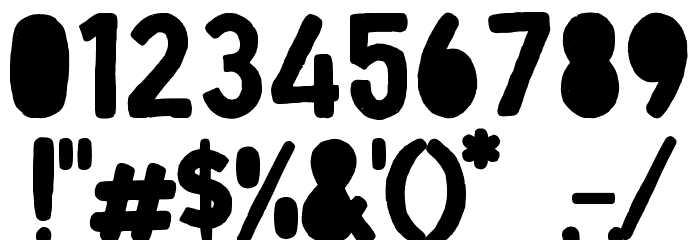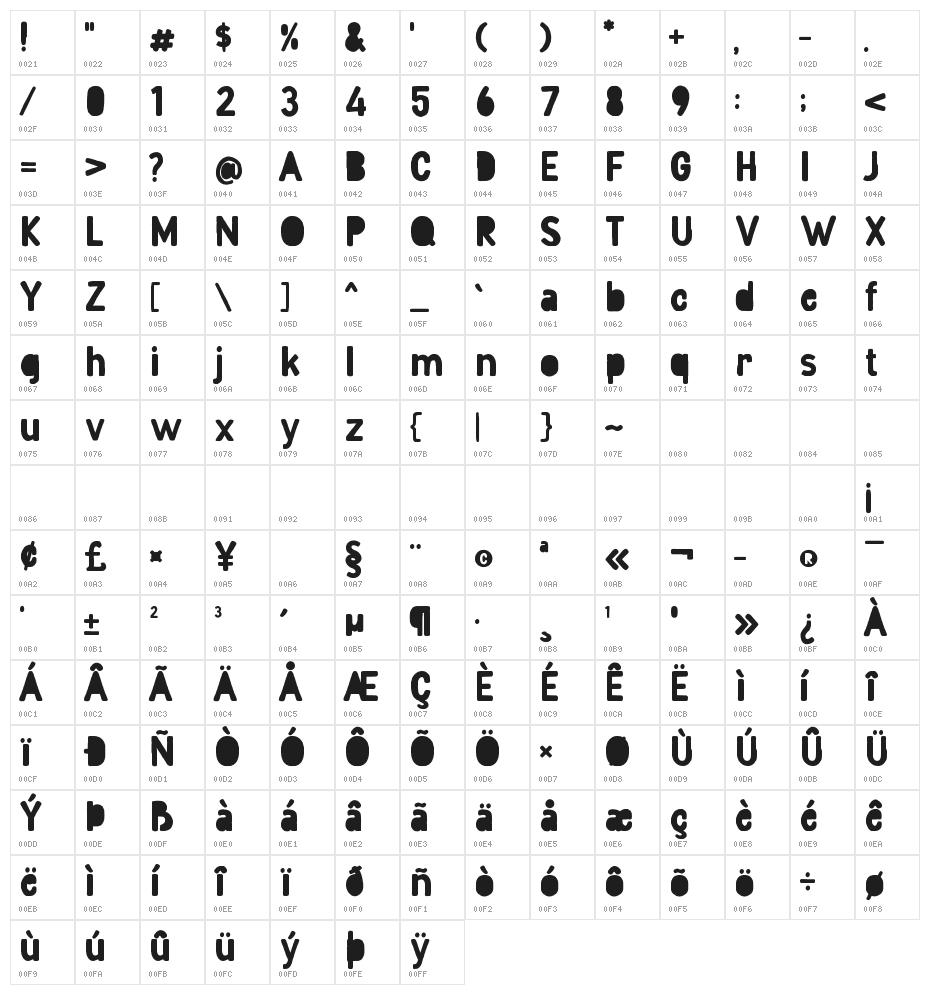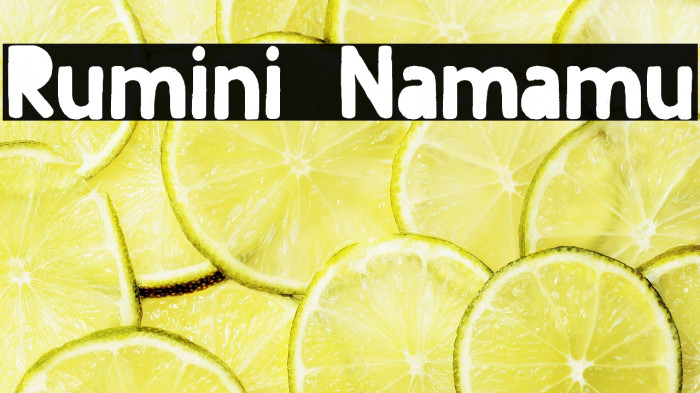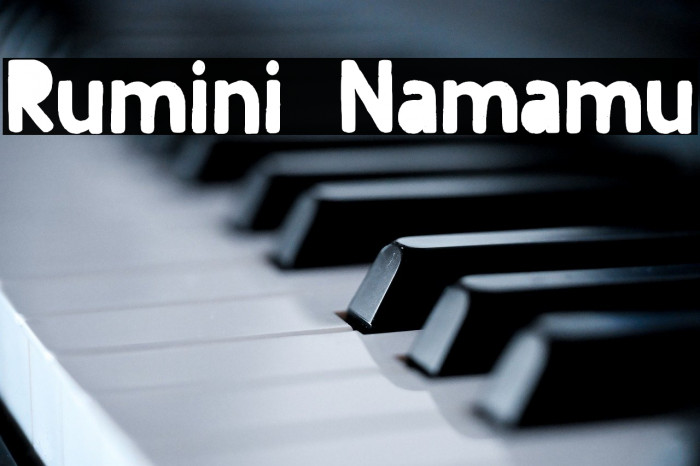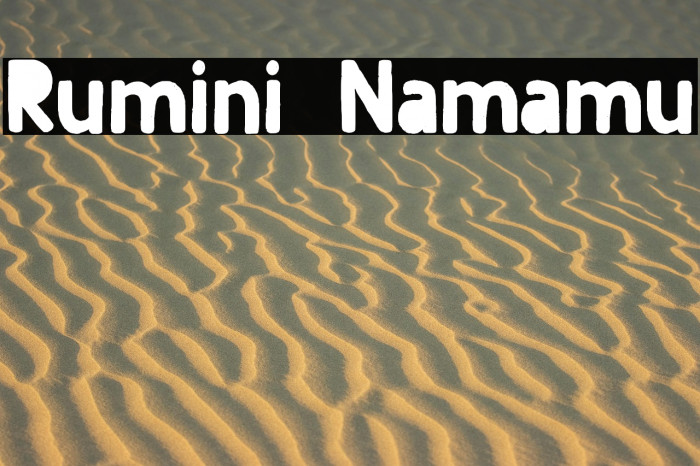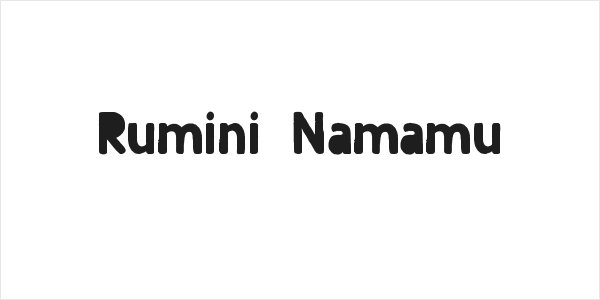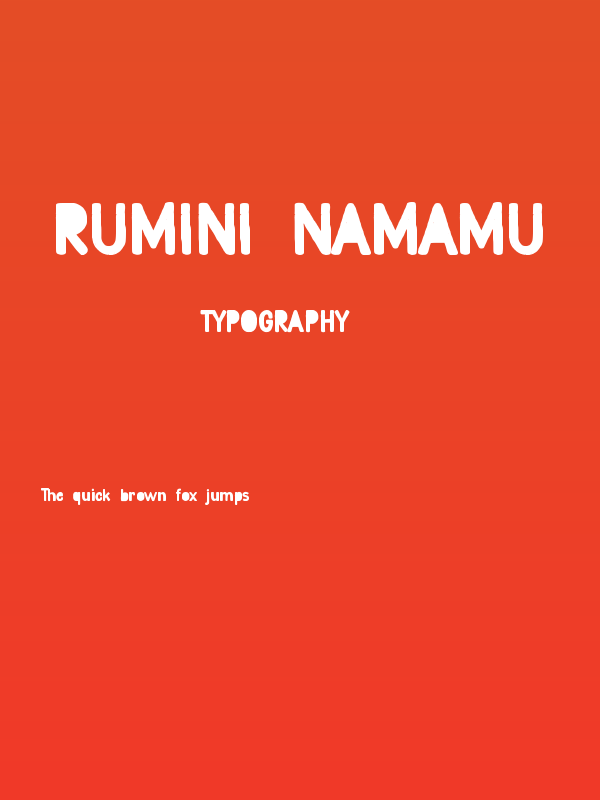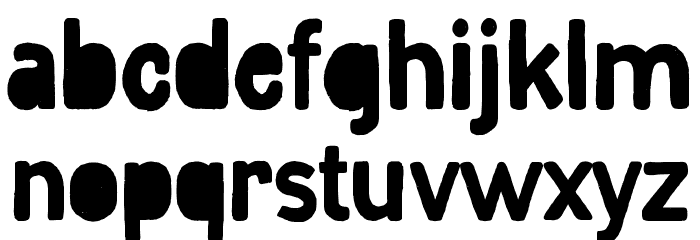
Rumini Namamu Font
Rumini Namamu Description
This font features bold, rounded characters with a playful and friendly appearance. The uppercase and lowercase letters maintain a consistent thickness, contributing to a cohesive look. The numbers and special characters are designed with the same rounded edges, ensuring uniformity across all glyphs. The font's style is approachable and modern, making it suitable for a variety of creative projects. Its boldness and rounded forms give it a unique personality, perfect for capturing attention while remaining legible.
| Proposed Projects | Ideal for children's books, playful branding, posters, and social media graphics. |